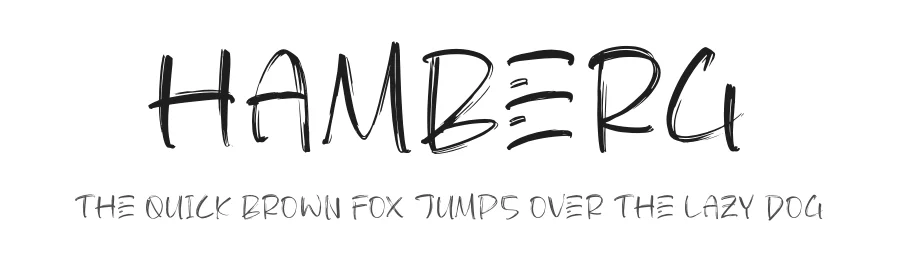
About Stticker Borjues Font
Stticker Borjues Specifications
| Font Family | Stticker Borjues |
| Full Name | Stticker Borjues |
| Glyph Count | 237 glyphs |
| PostScript Name | SttickerBorjues |
| Designer | Glorytype |
Stticker Borjues ships with 1 OpenType feature you can switch on in apps that support them (Illustrator, InDesign, Affinity, Figma, CSS font-feature-settings).
Stticker Borjues supports 222 languages.
Stticker Borjues Font is a script font that shines as a display or heading face. Pair it with a clean sans-serif or serif font for body text β the contrast creates a clear hierarchy while the two styles stay balanced and easy to read.
Stticker Borjues Font